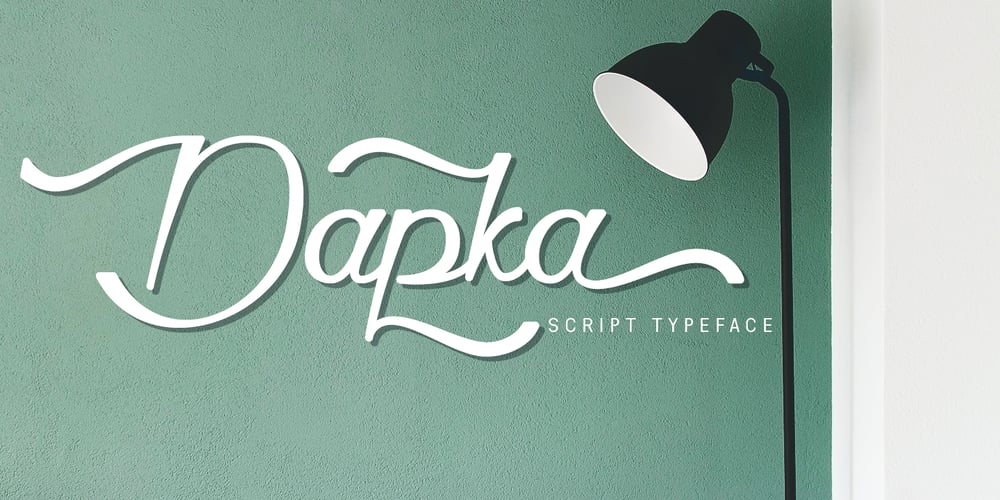
Dapka
Dapka font
Dapka Font Family was designed by Muhammad Khoirul Amal and published by CBRTEXT Studio. Dapka contains 1 styles and family package options. Dapka is a unique typeface script. It offers beautiful typographic forms for a variety of design projects, including logos & branding, wedding designs, handwritten quotes, product packaging, headers, posters, merchandise, social media & greeting cards. social media posts, advertising & product design. So that it can help support your business. Dapka consists of 616 glyphs and supports 28 languages. OpenType features can be accessed using smart OpenType programs such as Adobe Illustrator, Adobe InDesign, Adobe Photoshop Corel Draw X version, and Microsoft Word. This font has provided a PUA Unicode (font with a special code).